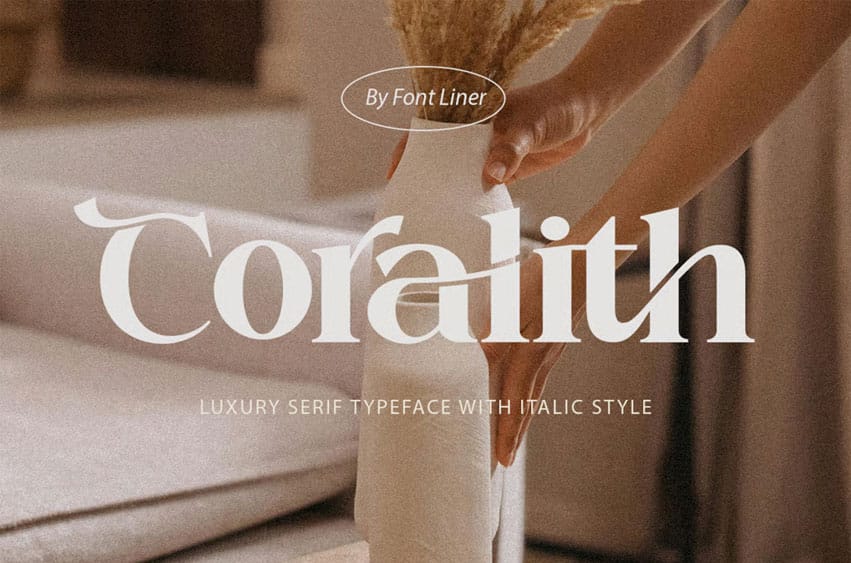
Coralith Font is a Luxury Serif Typeface. This typeface has been made carefully to ensure its premium quality and luxury feel. The ligatures make this typeface unique and stand out rather than the regular serif font. Very suitable for logos, headlines, titles, and other various formal forms such as invitations, labels, logos, magazines, books, greeting/wedding cards, packaging, fashion, make-up, stationery, novels, labels, or any type of advertising purpose.